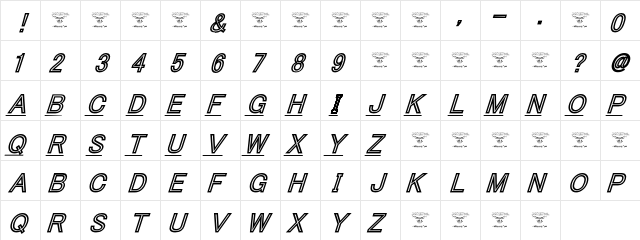
Tha Cool Kidz Black Italic
Design Context for Tha Cool Kidz Black Typeface
Tha Cool Kidz Black takes a measured approach to typography — its balanced proportions and neutral character make it a reliable workhorse for both digital and print work. The slanted form adds forward momentum and visual energy.
Pro Tip: Try Tha Cool Kidz Black for annotation and caption copy alongside an upright companion — the contrast in angle creates a dynamic but ordered typographic system.